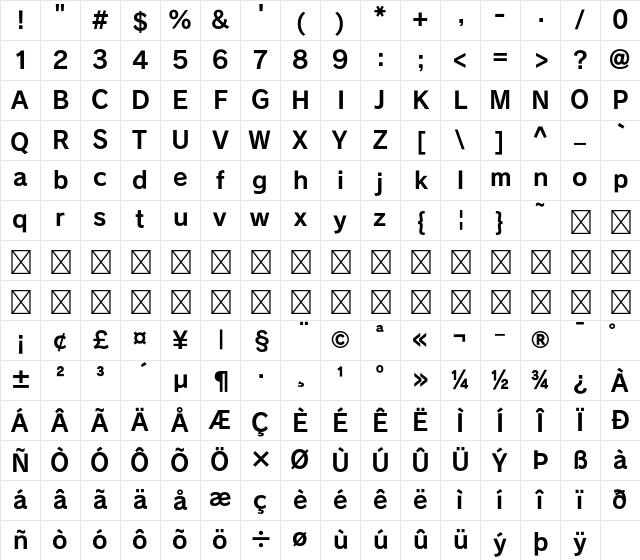
FOT-RodinWanpaku Pro B
Style: B
Designer: Fontworks Japan, Inc.
Design Context for FOT-RodinWanpaku Pro
FOT-RodinWanpaku Pro is a composed and adaptable typeface that performs quietly and consistently across a wide range of design contexts.